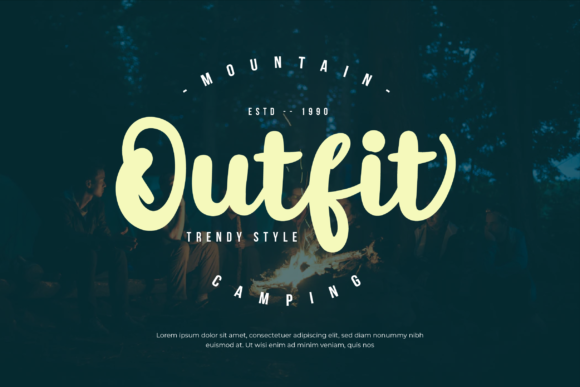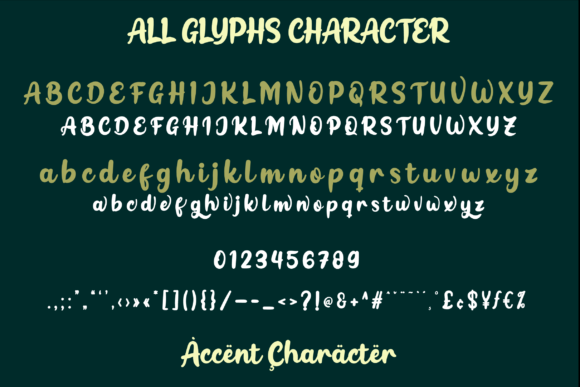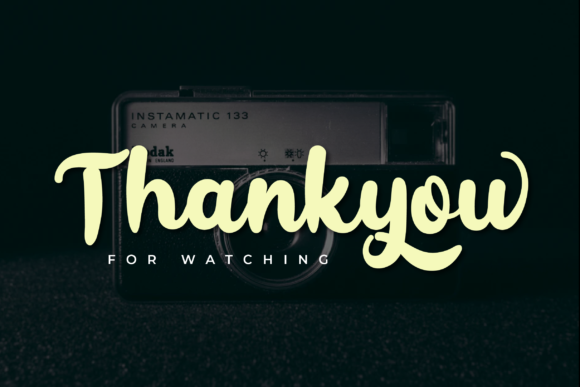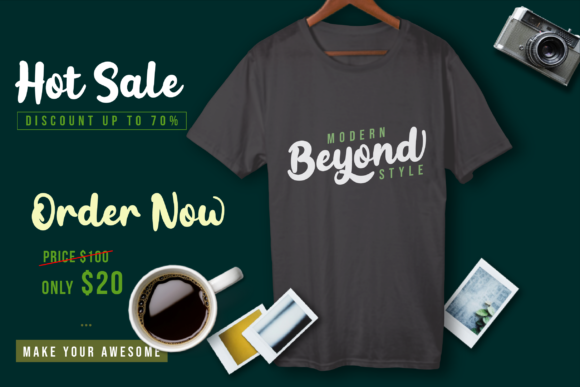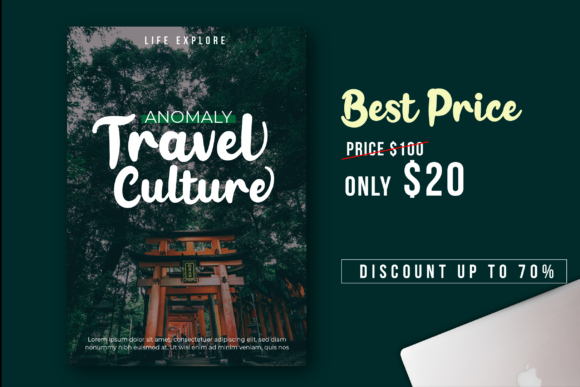
About Inner Vintage Font
Inner Vintage is a sweet and friendly display font. Its natural and unique style makes it incredibly fitting for a large pool of designs. The only limit is your imagination!